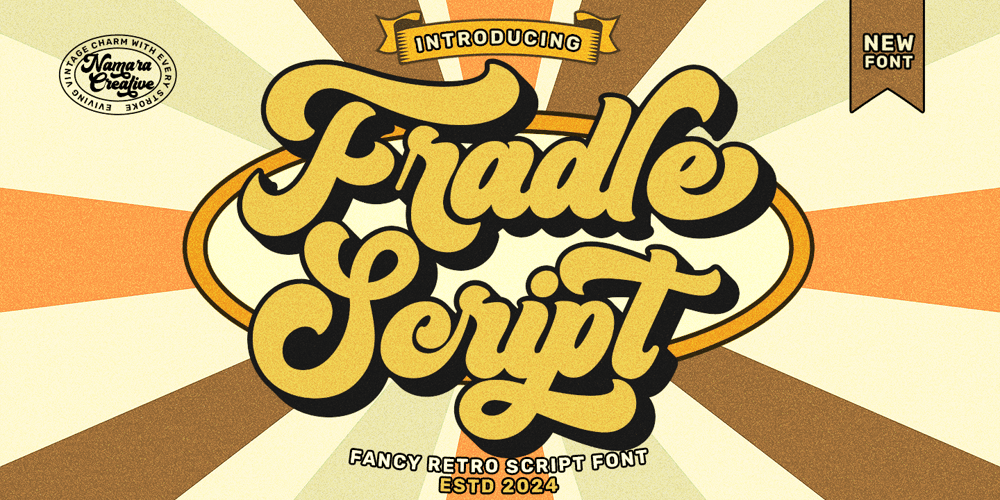
Fradle Font Family was designed by Eep Apringga and published by Namara Creative Studio. Fradle contains 2 styles and family package options. Introducing Fradle ScriptA retro bold script font that captures the vintage charm and boldness. It brings a nostalgic appeal that resonates with audiences looking for vintage authenticity and modern allure.Whether you need it for headlines, logos, packaging, or editorial designs, this font stands out for its boldness and versatility. It’s perfect for projects that require a bold statement with a retro edge and this font will leave a lasting impression.Features : Full Set of standard characters and punctuations. Alternates, ligatures, swashes and multilingual support. PUA Encoded | No special software needed to access extra characters.